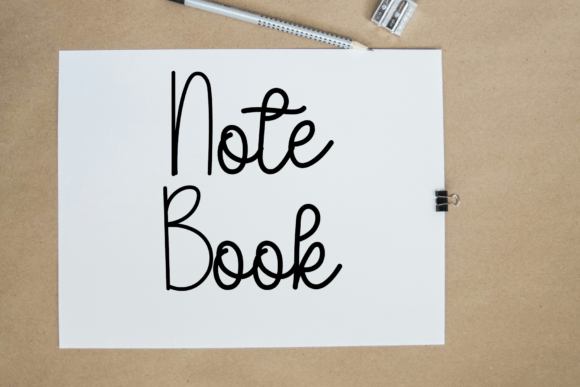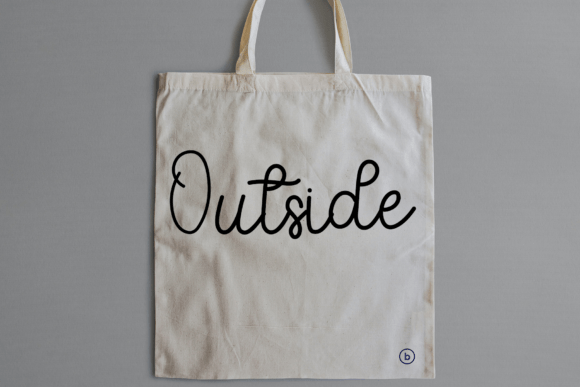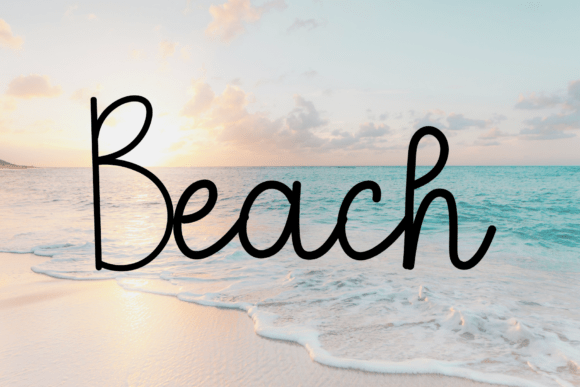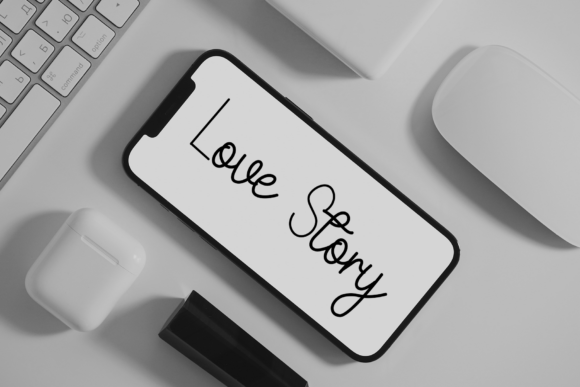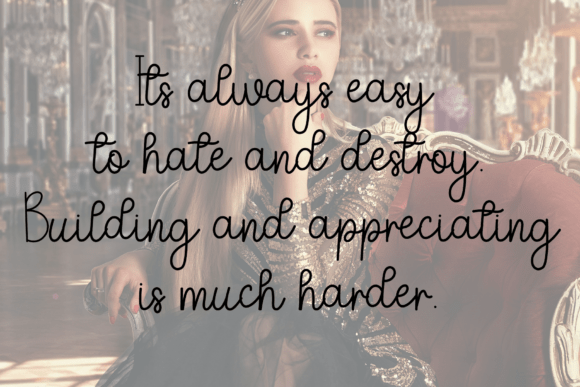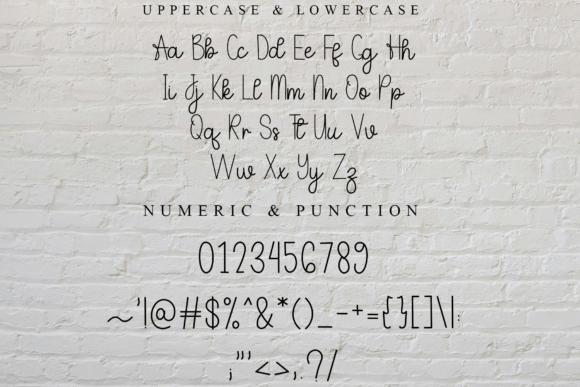
Introducing Heart Font: The Timeless Handwritten Font for Stunning Designs
Are you a designer or crafter looking for a font that can add a touch of elegance and whimsy to your creations? Look no further than Heart Font, a lovely and timeless handwritten font that is sure to capture your audience’s attention. In this article, we’ll explore the features and benefits of Heart Font, and why it’s the perfect choice for creating eye-catching logos, branding, and quotes.
The Unique Charm of Heart Font
Heart Font is a beautifully crafted handwritten font that boasts a unique and beautiful touch. Every letter has been carefully designed to be distinct and full of character, making it perfect for designs that require a personal touch. The font’s timeless quality ensures that it will remain stylish and relevant for years to come, making it a great investment for designers and crafters.
Heart Font is incredibly versatile and can be used for a wide range of design projects. Its elegant and whimsical feel makes it perfect for creating eye-catching logos, branding, and quotes that will leave a lasting impression on your audience. Whether you’re designing a logo for a new business, creating a brand identity, or crafting a inspirational quote, Heart Font is the perfect choice.
What Sets Heart Font Apart
So, what sets Heart Font apart from other fonts? Here are just a few features that make it a standout choice:
- Unique and beautiful touch: Every letter has been carefully designed to be distinct and full of character.
- Timeless quality: Heart Font has a timeless quality that ensures it will remain stylish and relevant for years to come.
- Versatility: Heart Font can be used for a wide range of design projects, from logos and branding to quotes and more.
- Elegant and whimsical feel: Heart Font has an elegant and whimsical feel that is sure to capture your audience’s attention.
Tips for Using Heart Font
Here are a few tips for getting the most out of Heart Font:
- Use it sparingly: Heart Font is a statement font, so use it sparingly to make a big impact.
- Pair it with other fonts: Heart Font pairs well with other fonts, so don’t be afraid to experiment with different combinations.
- Experiment with colors and textures: Heart Font looks great in a variety of colors and textures, so don’t be afraid to get creative.
Inspirational Design Ideas with Heart Font
Here are a few inspirational design ideas to get you started with Heart Font:
- Create a stunning logo: Use Heart Font to create a logo that is both elegant and eye-catching.
- Design a beautiful quote: Use Heart Font to create a quote that is both inspiring and visually stunning.
- Develop a brand identity: Use Heart Font to develop a brand identity that is both unique and memorable.
In conclusion, Heart Font is a timeless handwritten font that is perfect for designers and crafters looking to add a touch of elegance and whimsy to their creations. Its unique and beautiful touch, versatility, and elegant and whimsical feel make it a standout choice for a wide range of design projects. Whether you’re creating a logo, branding, or quote, Heart Font is sure to make your design come alive!